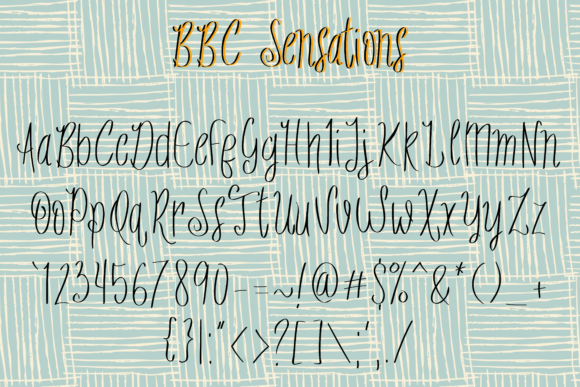
Discover the Charm of BBC Sensations Font
I’ll never forget the design project that led me to BBC Sensations Font. I was working on a branding project for a vintage-inspired boutique, and I was struggling to find the perfect font to capture the essence of the brand. The client wanted something that exuded old-timey charm, but still felt modern and fresh. That’s when I stumbled upon BBC Sensations Font, and it was love at first sight! 💕
A Beautiful Handwritten San-Serif Font
BBC Sensations Font is a stunning handwritten san-serif font that embodies the perfect blend of vintage charm and modern sophistication. Its unique character set and elegant lines make it an excellent choice for a wide range of design projects, from branding and packaging to crafting and DIY projects.
- ✨ Unique and elegant handwritten style
- ✅ Highly legible and versatile
- 💫 Supports OpenType features and glyphs
- 🎨 Perfect for a wide range of design projects
While BBC Sensations Font is an amazing font, there are a few things to keep in mind. ⚠️ Some users have reported that the font can be a bit tricky to use with certain software, and the character set may not be as extensive as some other fonts. However, these limitations are minor and can be easily worked around.
🤔 One thing to note is that the font may not be suitable for very small font sizes, as some of the details may get lost. However, this is a common issue with many handwritten fonts, and it’s easily resolved by using a larger font size.
The Backstory Behind BBC Sensations Font
BBC Sensations Font was designed with the goal of creating a unique and elegant handwritten font that captures the essence of old-timey charm. The designer drew inspiration from classic typography and handwriting styles, and infused the font with a modern twist. The result is a font that’s both vintage and fresh, perfect for a wide range of design projects.
Q: What is BBC Sensations Font?
A: BBC Sensations Font is a beautiful handwritten san-serif font that’s perfect for a wide range of design projects.
Q: Can I use BBC Sensations Font for crafting and DIY projects?
A: Absolutely! BBC Sensations Font is perfect for crafting and DIY projects, such as making signs, cards, and other handmade items.
Q: Is BBC Sensations Font easy to read?
A: Yes, BBC Sensations Font is highly legible and easy to read, making it perfect for a wide range of design projects.